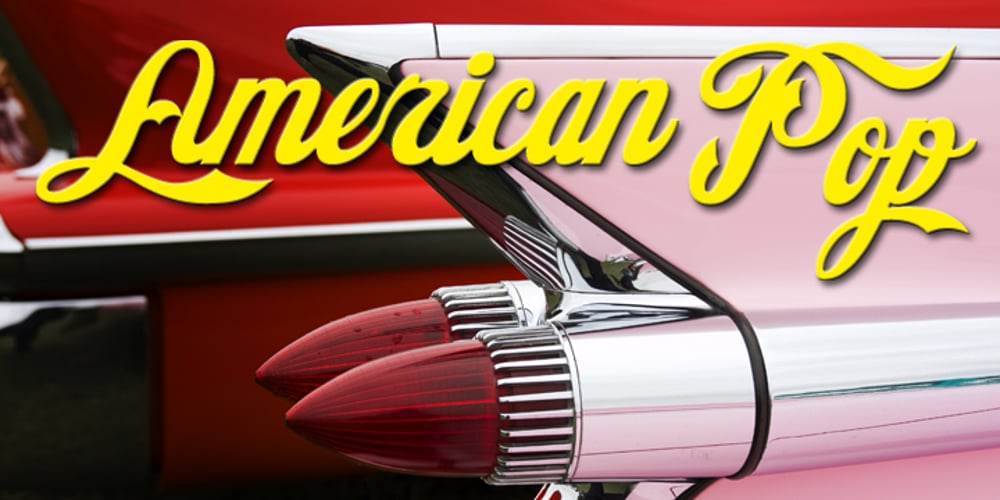
American Pop
American Pop font
American Pop Font Family was designed by Michael Hagemann and published by FontMesa. American Pop contains 3 styles and family package options. As it is plain to see American Pop resembles the famous cola logo that we all know and love, please stay tuned for more versions of this font coming in the future.